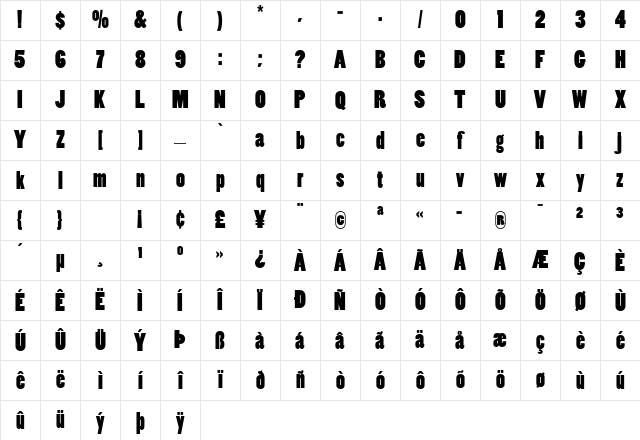
Complete Poplar Regular glyph index. Displaying only characters natively supported by Poplar Regular font.
Poplar is a composed and adaptable typeface that performs quietly and consistently across a wide range of design contexts.
Pro Tip: Use Poplar in both headline and body roles to test its range before committing to a single application.